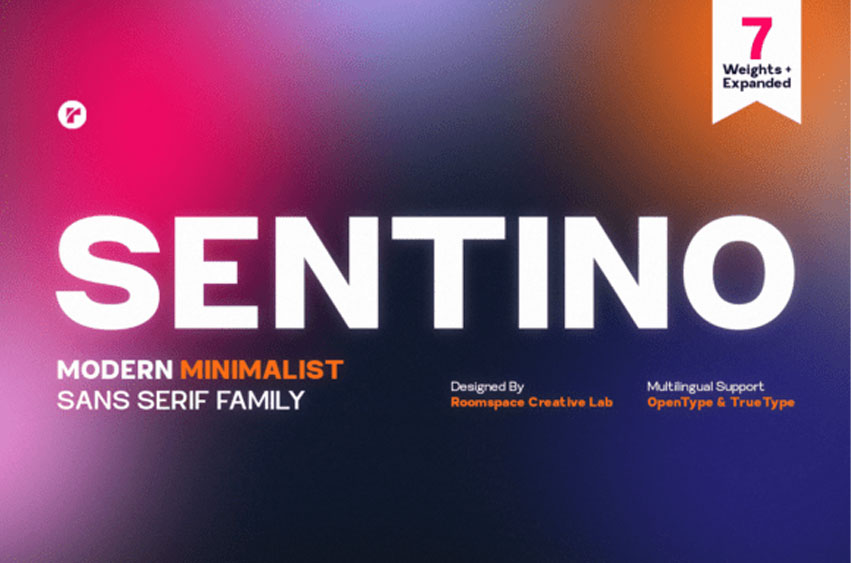
Sentino Font is a clean and minimalist sans-serif font family thoughtfully crafted to meet modern design demands.
Built on a neutral structure with refined proportions, Sentino offers a balanced and contemporary typographic voice that feels calm, professional, and highly adaptable. Its simplicity is intentional, allowing content and brand messages to take center stage while maintaining a polished and modern aesthetic.
This Sentino typeface comes with 7 weights plus expanded versions, providing a complete toolkit for corporate identity, tech startups, and editorial design. The Sentino font is built on geometric principles, ensuring maximum legibility across both digital and print mediums. Because of its neutral yet confident tone, the Sentino typeface can be paired with almost any script or serif font to create a professional contrast. From bold website headers to detailed body text in a brand manual, the Sentino font is the reliable, modern workhorse that every designer needs in their library.
Designed for versatility, Sentino performs seamlessly across a wide range of applications, including branding systems, UI/UX design, editorial layouts, web design, and digital experiences.